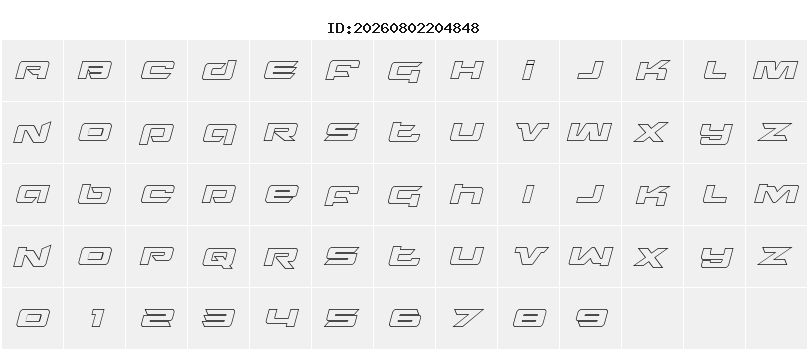
Northstar Outline Italic Preview
• Font Name: Northstar Outline Italic
• Full Font Name: Northstar Outline Italic
About Northstar Outline Italic.ttf
Northstar Outline Italic.ttf is a modern, elegant sans-serif font designed for ultimate readability and visual harmony. Perfect for branding, headlines, web design, and print materials.